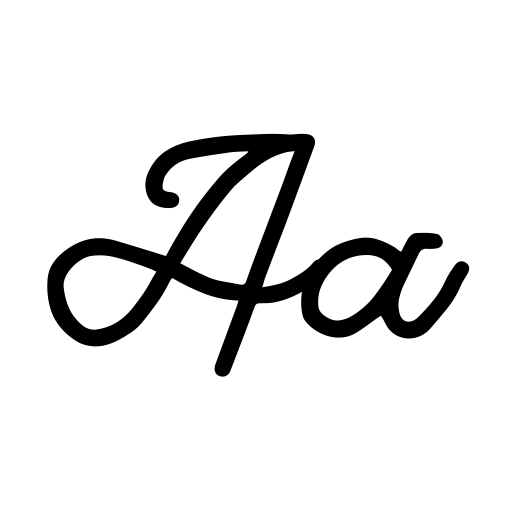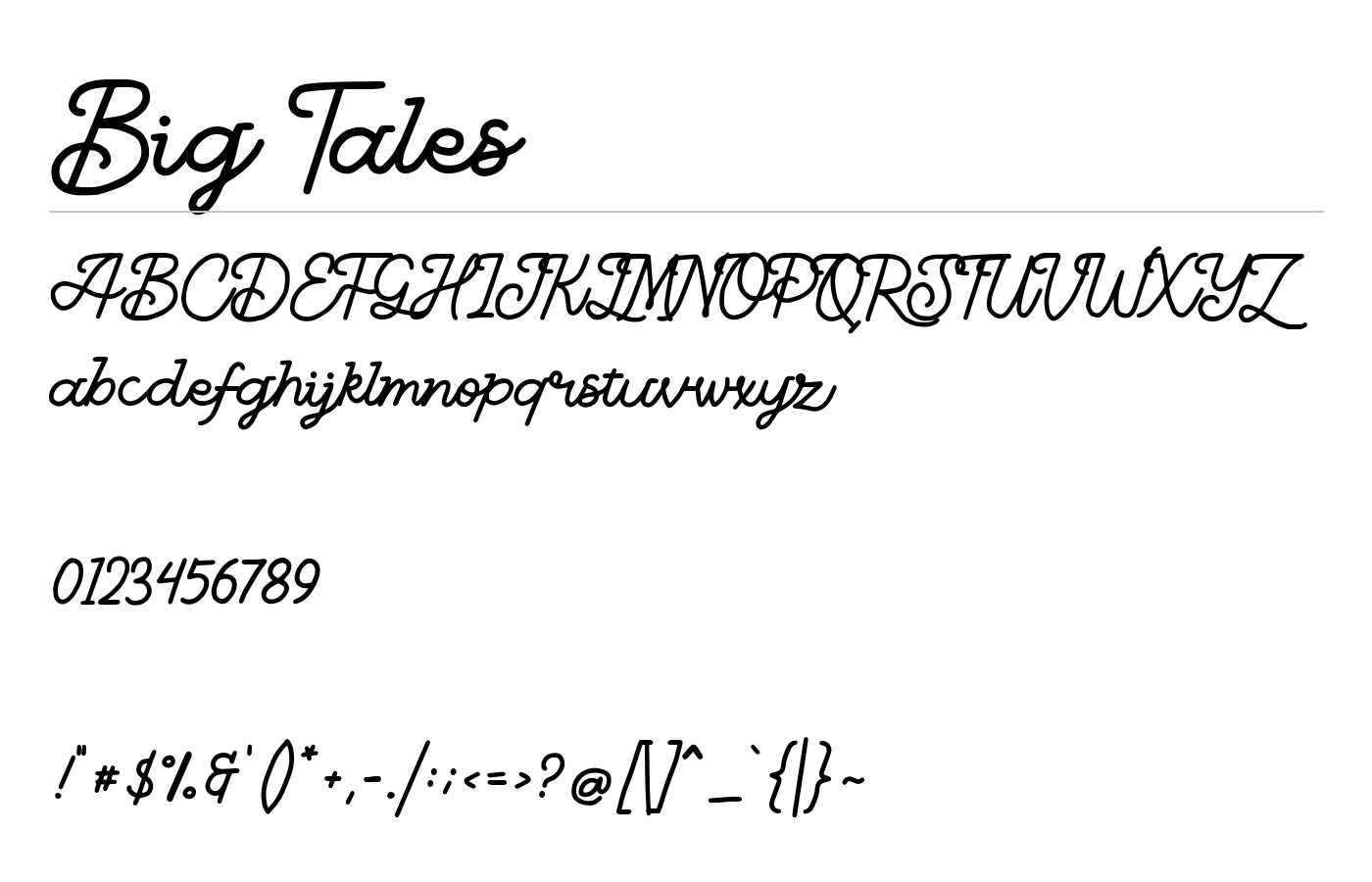
Big Tales is a light and airy script font with a playful and elegant personality, featuring smooth, fluid strokes and a handwritten feel that adds charm and warmth. Its slender letterforms and casual yet refined style make it perfect for inviting headlines, branding, and creative projects that want to convey friendliness and sophistication. This font works well in logos, invitations, and packaging where a personal and stylish touch is desired.
Big Tales Font
About Big Tales Font